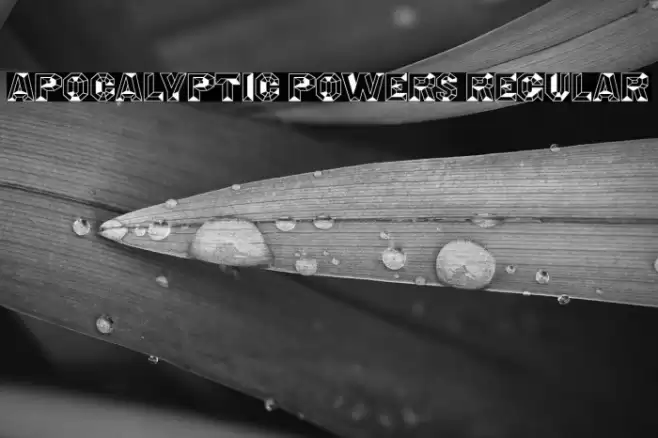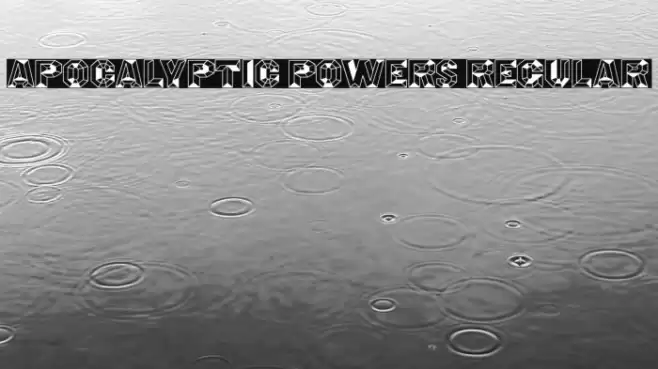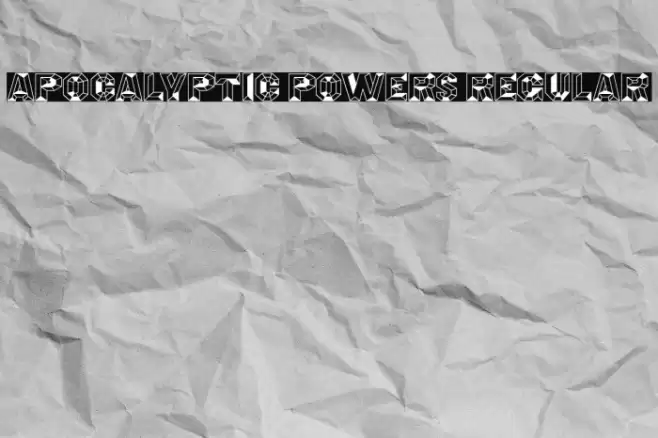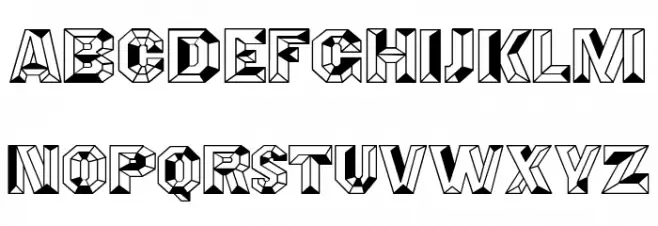
Apocalyptic Powers Regular Font
Apocalyptic Powers Regular Description
This font features a bold and geometric design, characterized by its intricate and angular shapes. Each letter is constructed with a series of sharp lines and facets, giving it a three-dimensional, almost crystalline appearance. The style is highly decorative, with a futuristic and edgy feel that makes it stand out. The letters are uppercase, with a consistent height and width, creating a uniform and balanced look. The design is reminiscent of a digital or sci-fi aesthetic, making it ideal for projects that require a modern and striking visual impact.
A bold, geometric font with a futuristic, crystalline design from Uncategorized fonts.
- Font: Apocalyptic Powers Regular
- Proposed Projects: Ideal for sci-fi themed posters, video game titles, futuristic branding, and digital art projects.
- Overall Style: Futuristic, Edgy